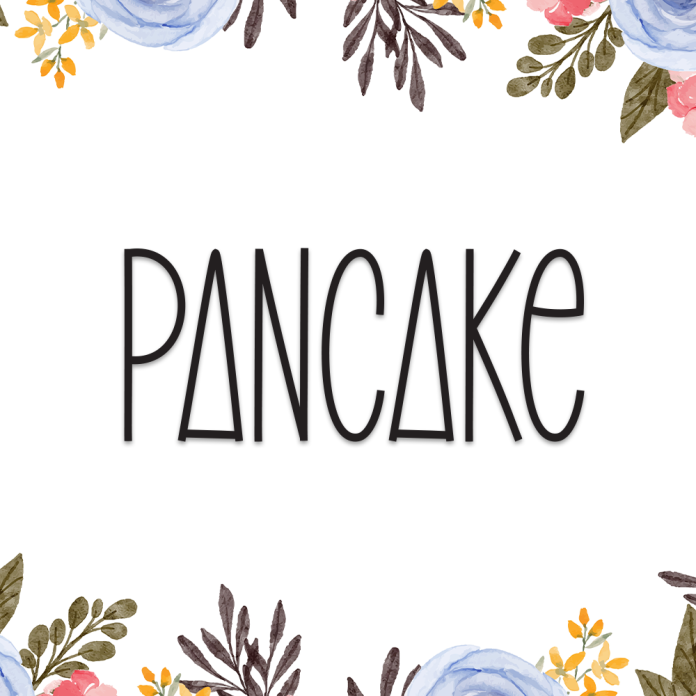
Pancake is a deliciously fun display font that brings charm, warmth, and a sprinkle of joy to your designs. With its soft, rounded letterforms and playful style, it’s perfect for anything that needs a cute and friendly feel.
Ideal for food packaging, children’s projects, café menus, birthday invitations, and cheerful branding, Pancake serves up a big helping of personality.
Playful and rounded display style
Friendly and fun character design
Perfect for sweets, kids, menus, and lifestyle designs
Add a taste of joy to your designs with Pancake, the font that’s as delightful as breakfast on a sunny morning!